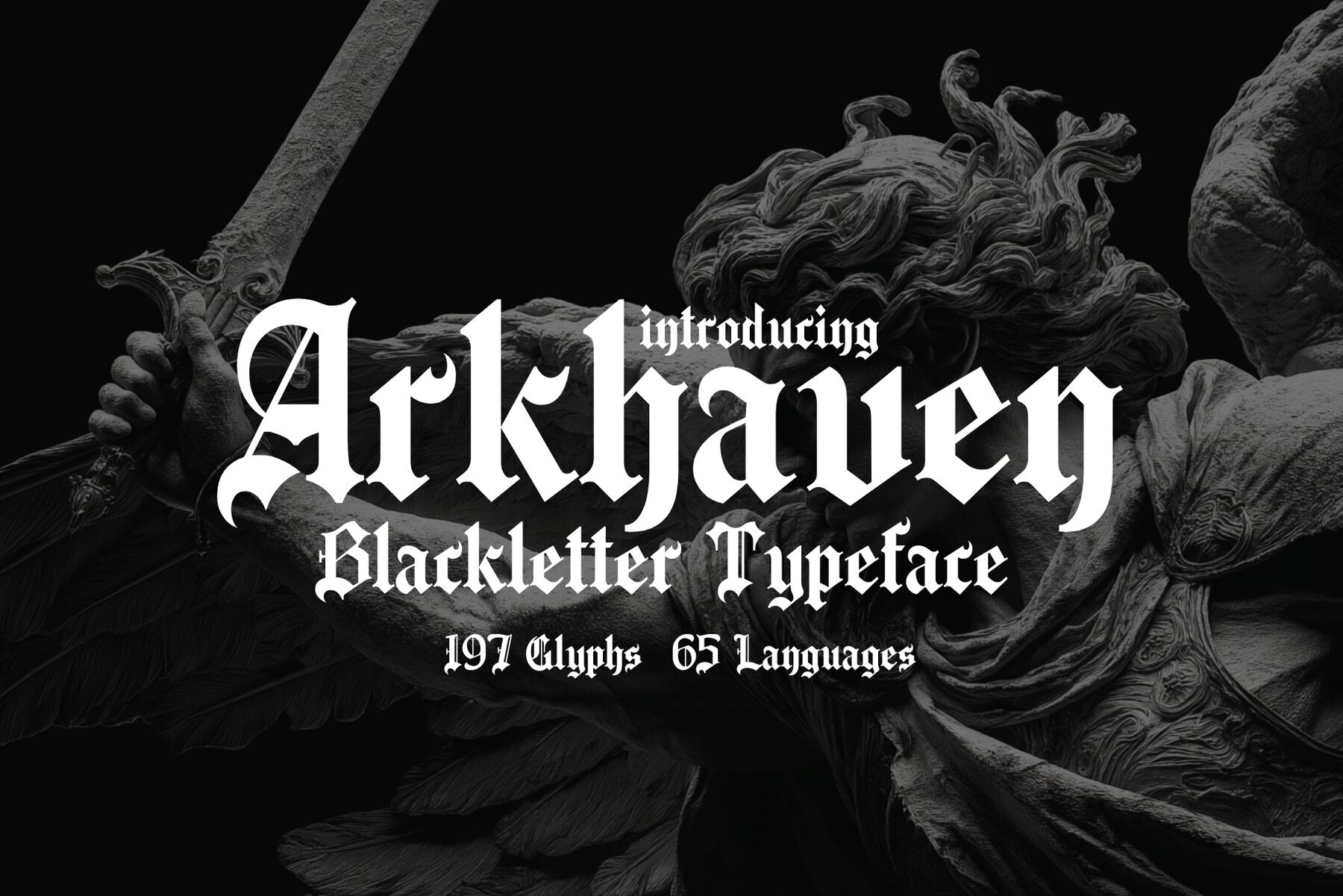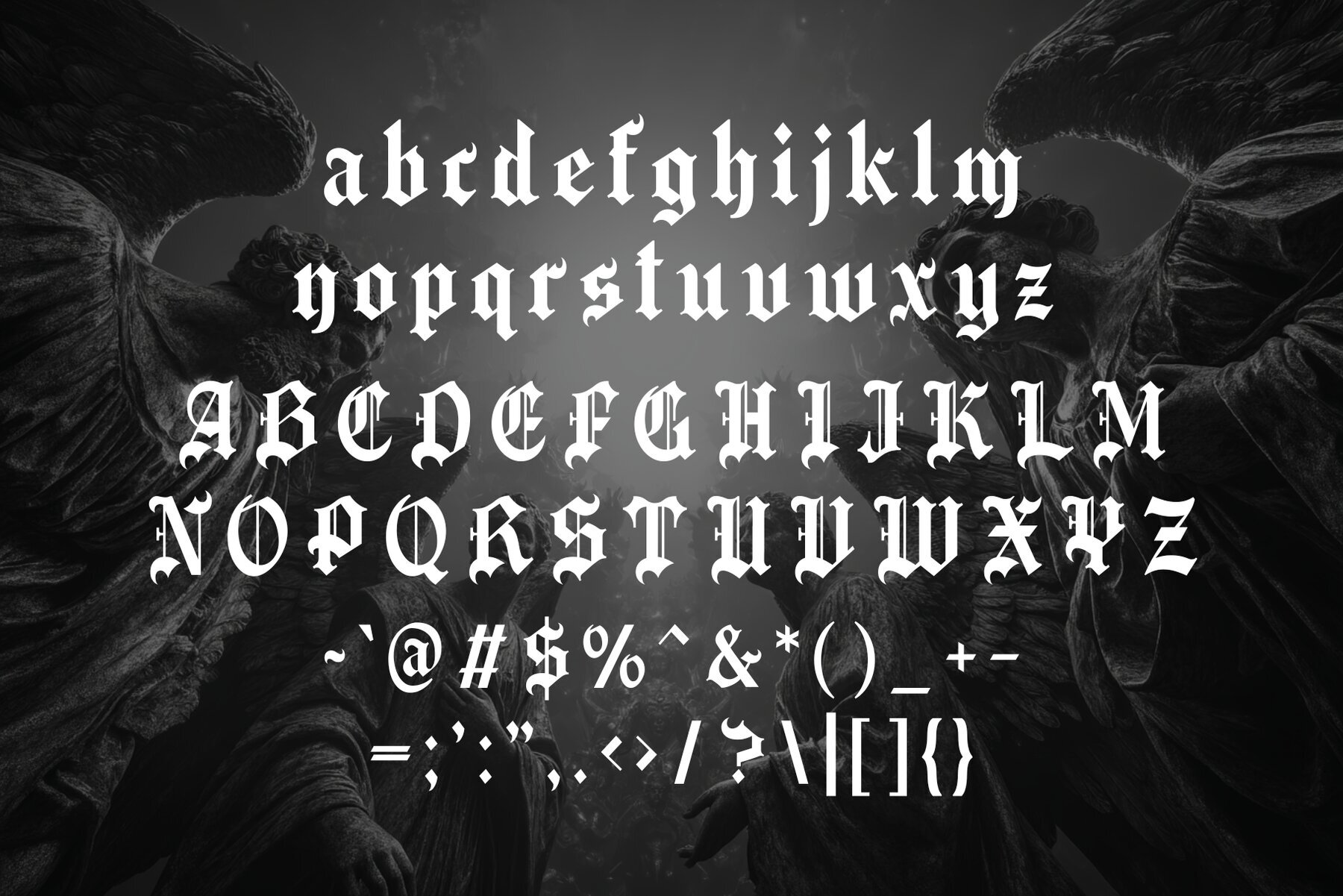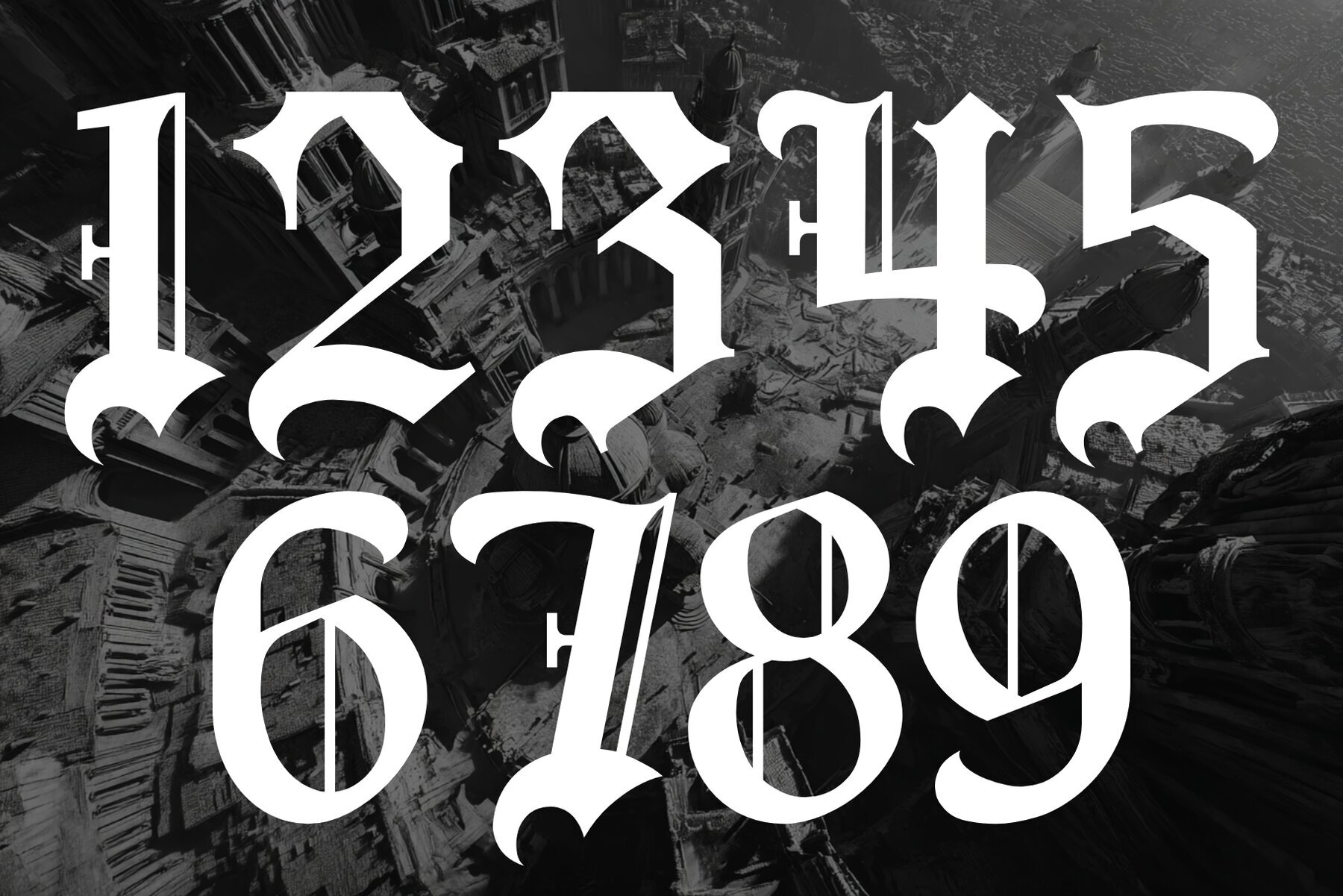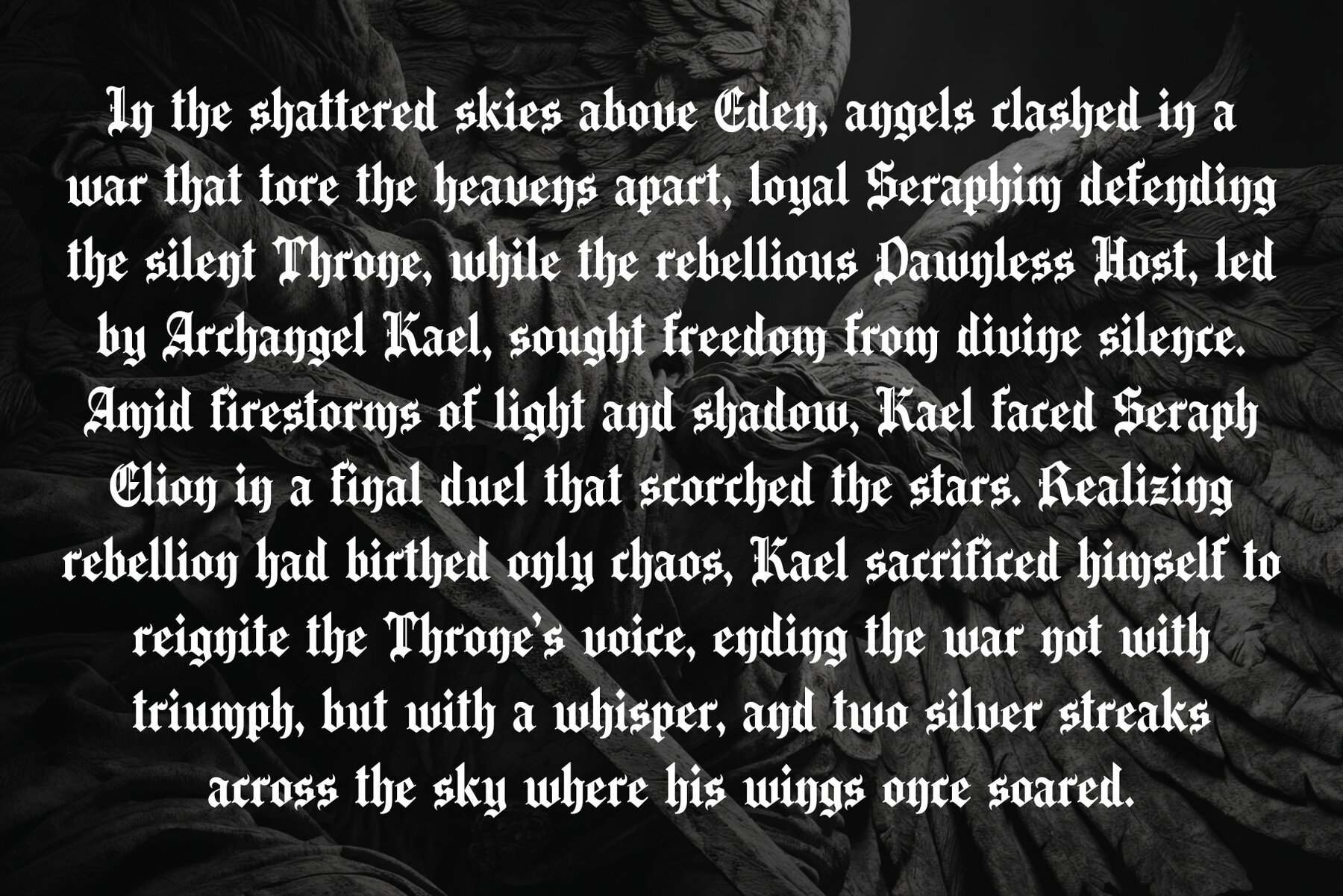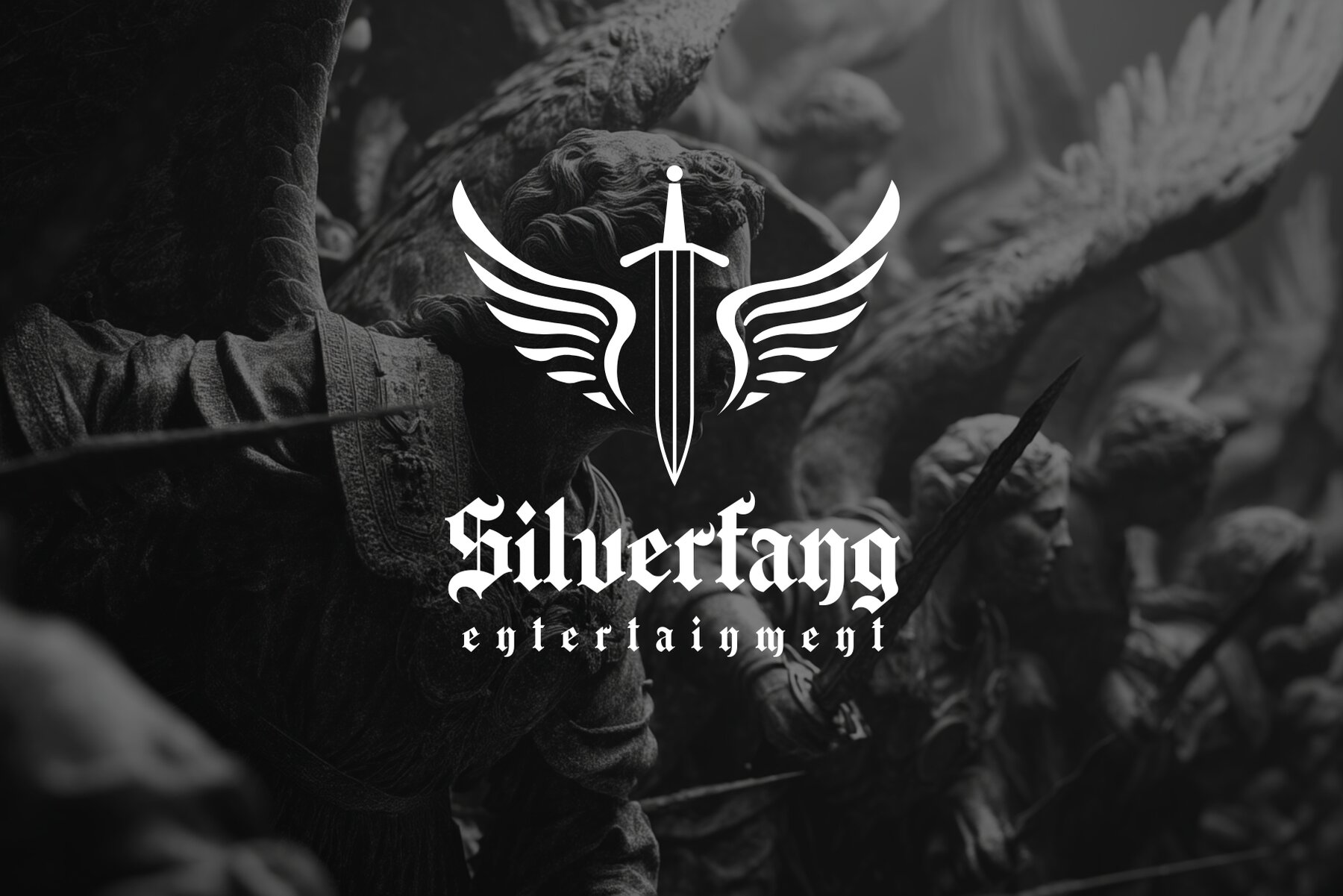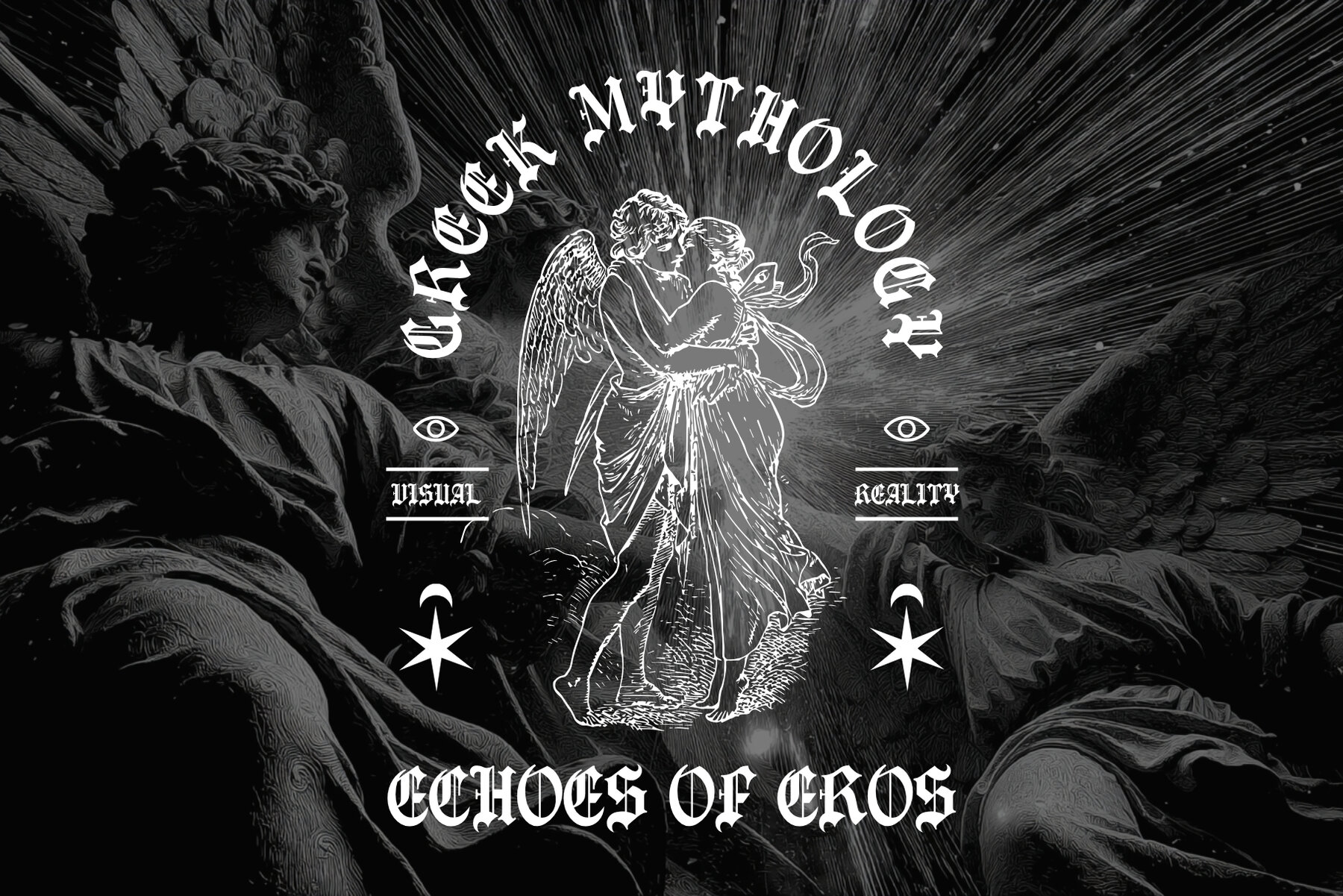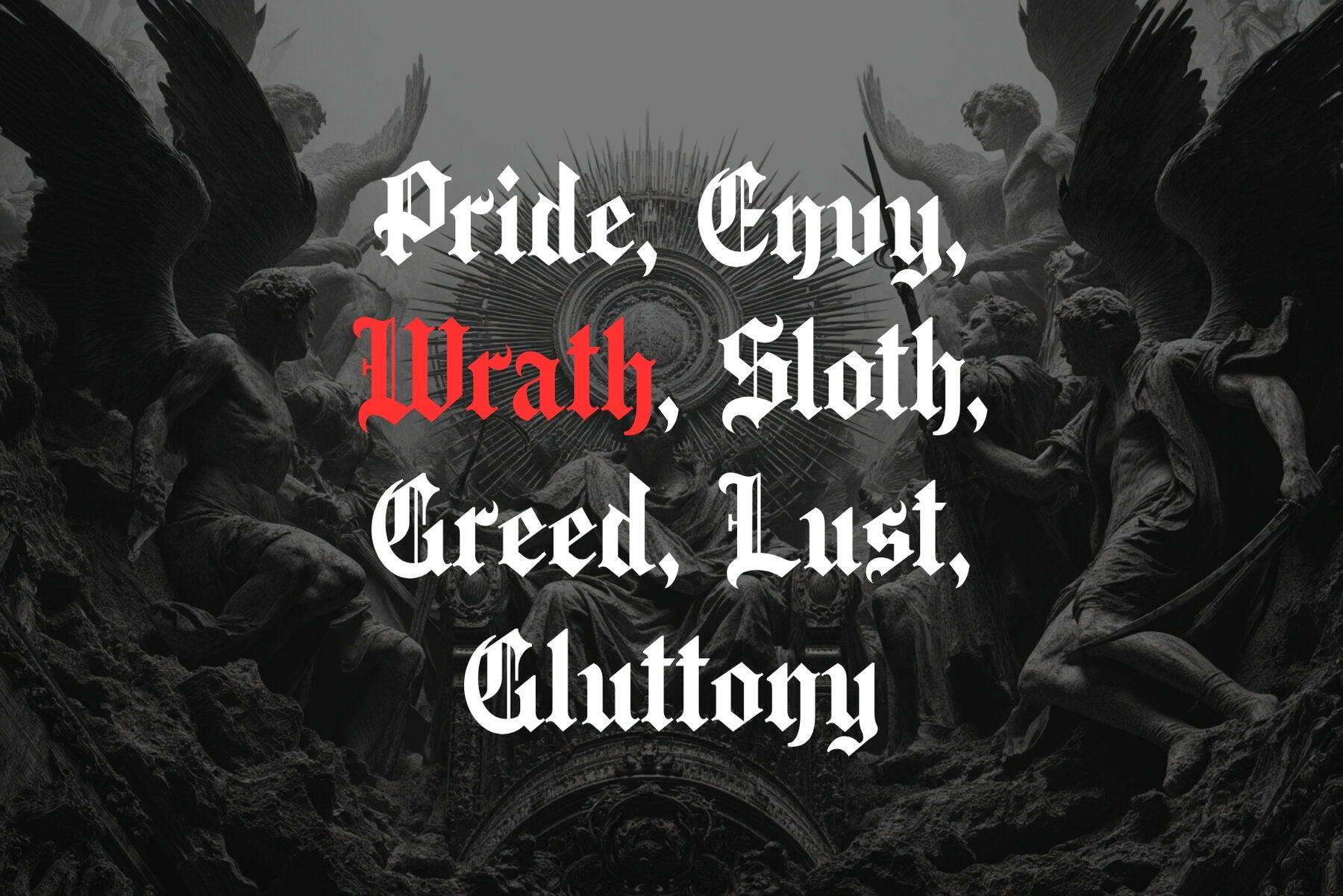
Arkhaven Font
Arkhaven
Arkhaven is a striking gothic blackletter typeface that elegantly bridges the line between the sacred and sublime. Drawing inspiration from the grand lettering of Old English manuscripts, cathedral engravings, and ancient texts, Arkhaven exudes a captivating balance of power and grace. Its refined serifs, ornate curves, and dramatic contrasts lend a timeless elegance, ideal for designers seeking a medieval, mysterious, or spiritual aesthetic. Designed to stand out, Arkhaven is not just eye-catching but also incredibly versatile, making it ready for global storytelling adventures. Whether crafting fantasy book covers, historical themes, or album artwork, Arkhaven leaves an indelible mark. Embrace the essence of a relic reborn with this unforgettable typeface.Arkhaven: A Gothic Blackletter Typeface